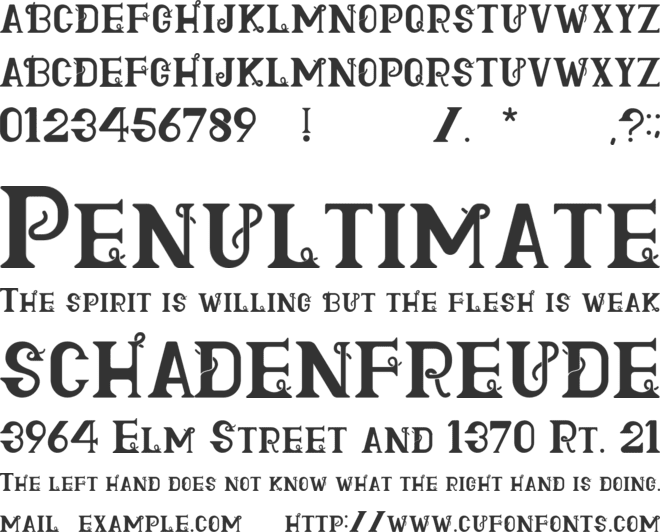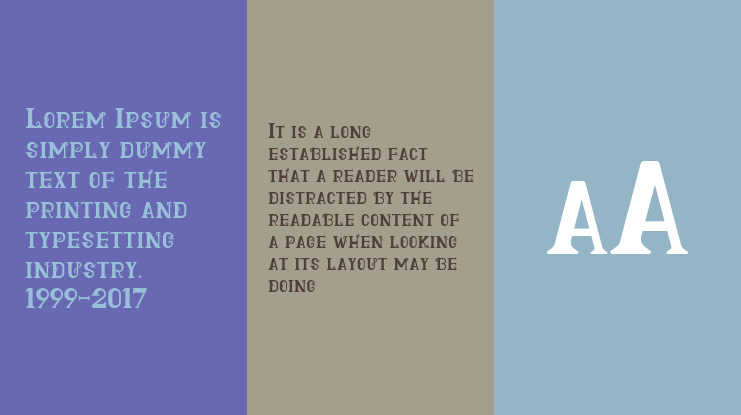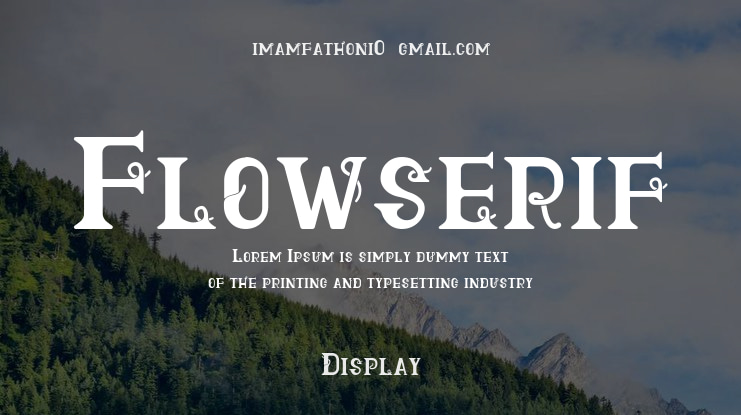
Flowserif is an elegant serif display font with flowing, vine-like swashes and delicate floral flourishes. Its graceful curves and botanical charm suit wedding invitations, fine dining menus, boutique branding, and floral packaging. The ornate letterforms bring a natural, refined romance to every design.